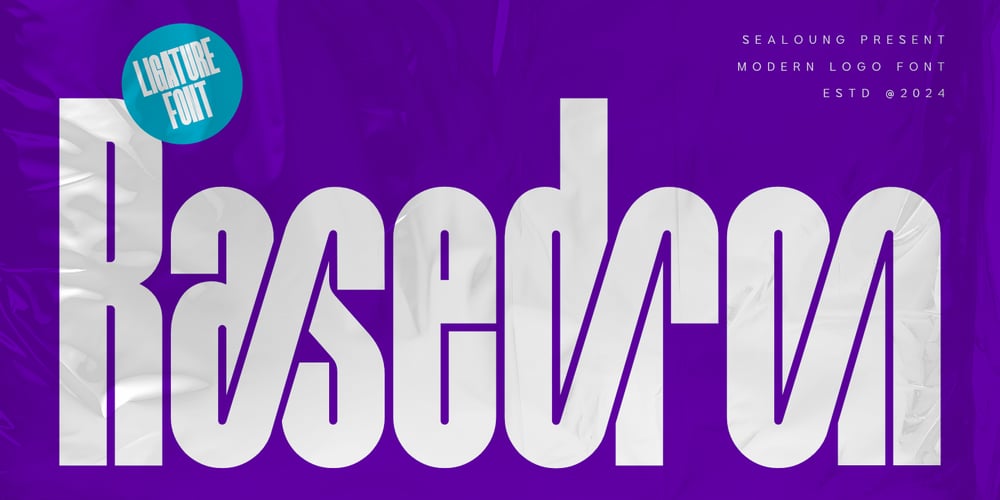
Rasedron
Rasedron font
Rasedron Font Family was designed by Saiful Anwar and published by Sealoung. Rasedron contains 1 styles and family package options. Rasedron – A Modern Sans Serif Ligature Logo FontElevate your branding with Rasedron, a sleek and contemporary sans serif font designed for creating striking logos and visual identities. The font features unique ligatures that add a touch of sophistication and creativity to your designs, making it perfect for brands that want to stand out with a modern and minimalistic approach. Whether you’re designing for digital platforms or print,Rasedron offers versatility and clarity, ensuring that your message is conveyed with style and precision. Ideal for logos, headlines, and branding projects, this font is a must-have tool for any designer looking to make a bold statement.Key Features: Stylish Ligatures: Enhance your text with elegant ligatures that bring a distinctive flair to your designs. Extensive Character Set: Includes uppercase letters, numbers, punctuation, and special characters to meet all your design needs. Versatile Usage: Ideal for logos, headlines, branding projects, and more, ensuring versatility across various mediums. Crisp and Clear: Designed with clarity in mind, Rasedron maintains readability even in smaller sizes. Modern Aesthetic: A clean, minimalist design that fits perfectly in contemporary design trends. Multilingual Support: Supports a wide range of languages, making it accessible for global audiences.